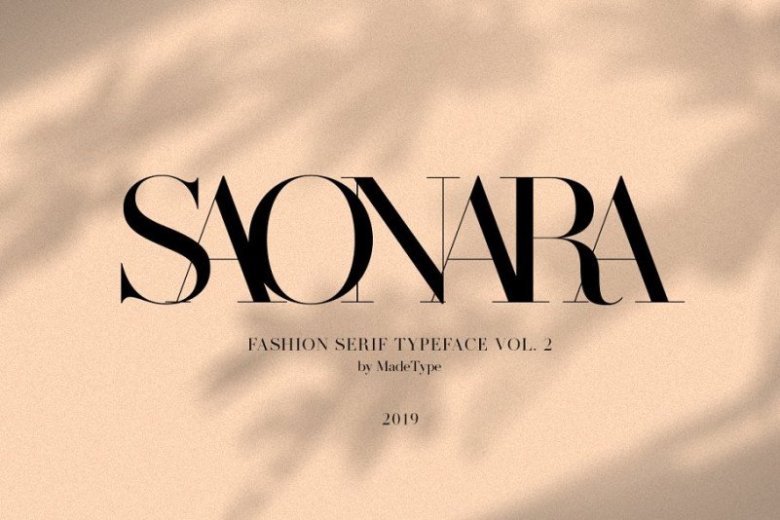
Made Saonara Serif Font
A high contrast serif typeface. This is a font for fashion that is very classy and beautiful. This way this design got more organic, more human, more serious, more trustworthy and more luxurious. Introducing Made Saonara Font. MADE SAONARA is a serif typeface inspired by fashion. The SAONARA will perfect for many project: fashion, magazines, logo, branding, photography, wedding invitations, quotes, blog header, poster, advertisements, etc.